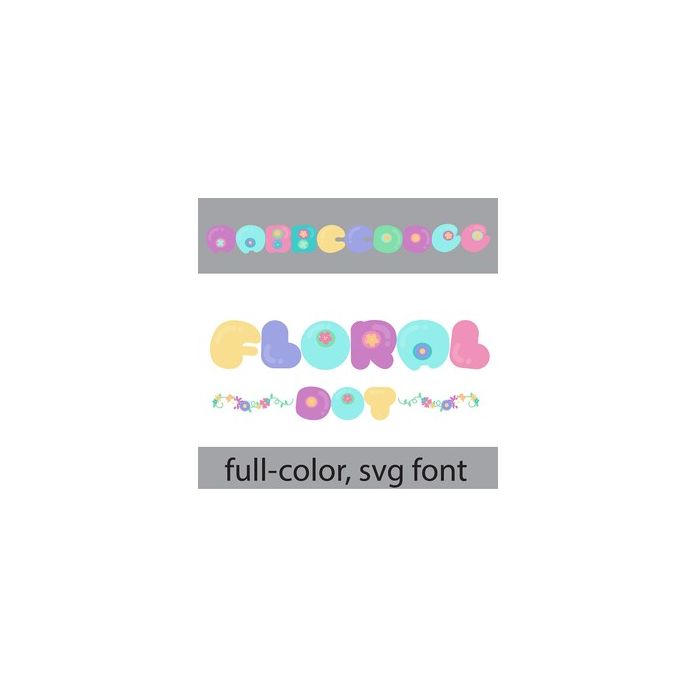
This full-color font features round, bouncy lettering with floral-filled dots. There is an alt case w/ additional colors you can access through your system or Silhouette's glyph map.